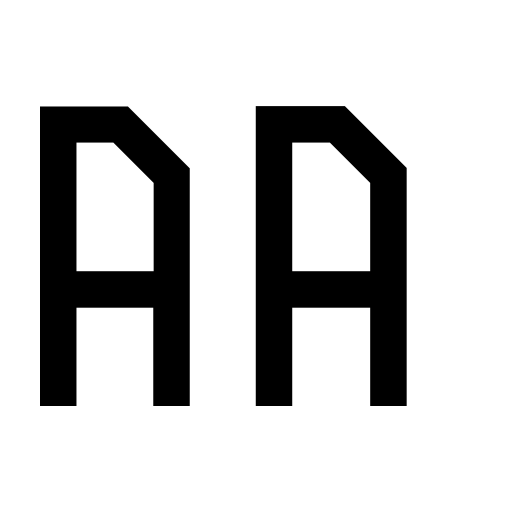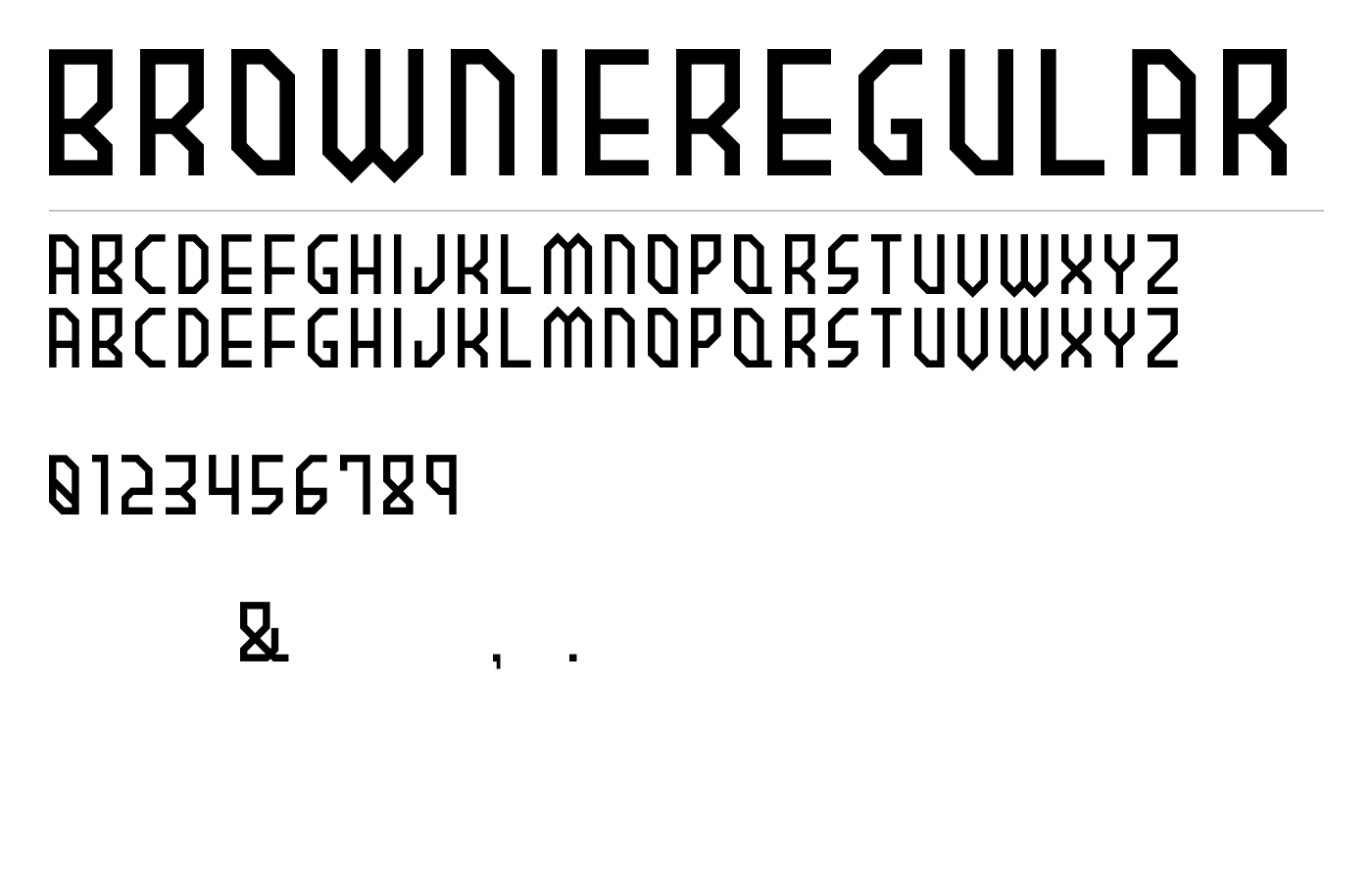
Brownie Regular is a condensed, geometric sans serif font with a modern, industrial vibe. Its monoline strokes, sharp angles, and narrow letterforms make it ideal for bold headlines, logos, and projects that need a futuristic or technical feel. This font works well for creative branding and display purposes where a clean, structured look is desired.
BROWNIEregular Font
About BROWNIEregular Font